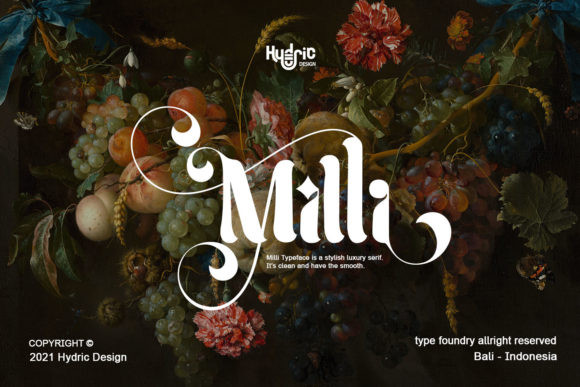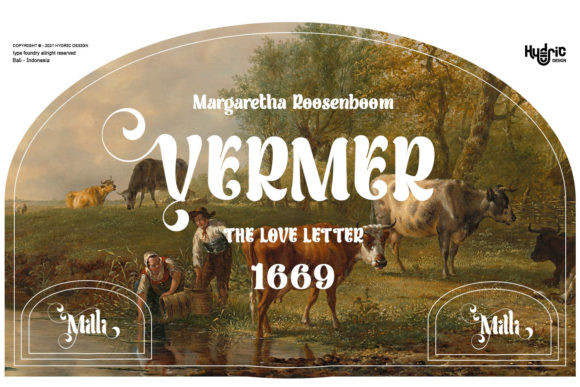
Milli Font
Milli is a stylish, luxury serif font. Its clean and incredibly versatile style makes this font the ideal choice for each of your favorite designs. Use this font for your creations and explore its endless possibilities.